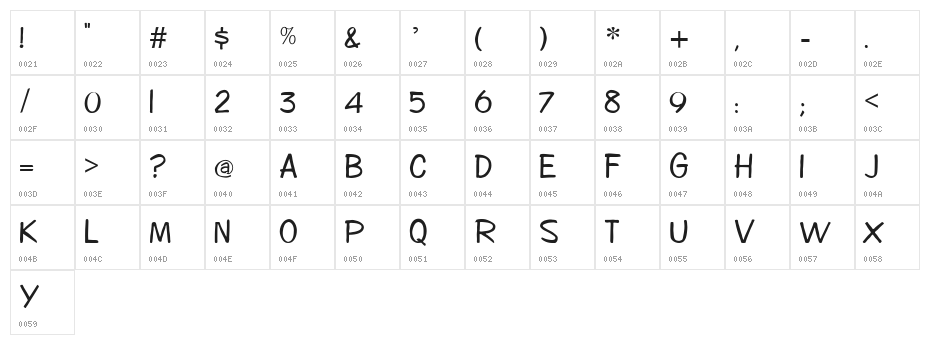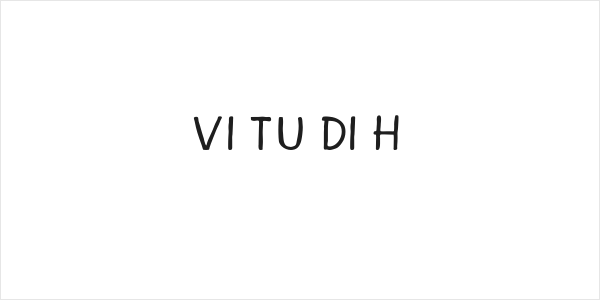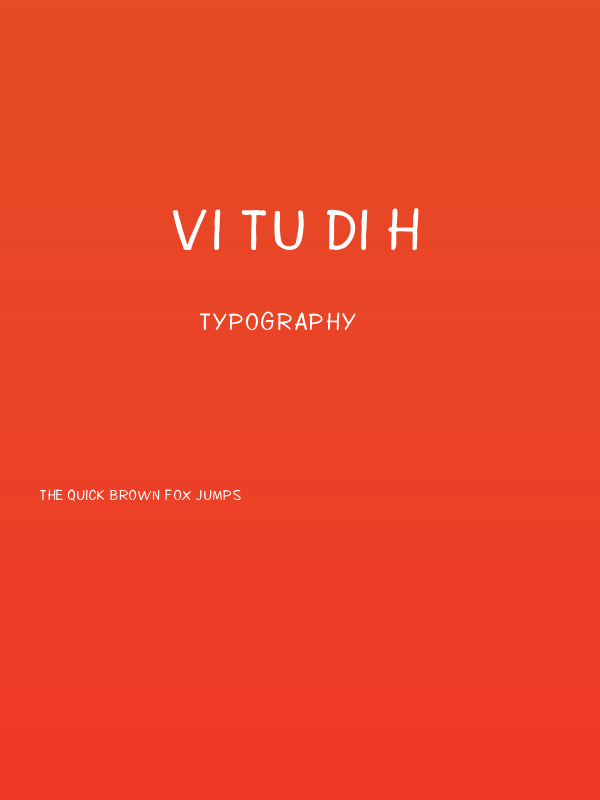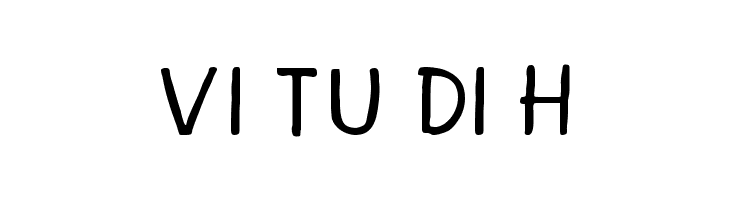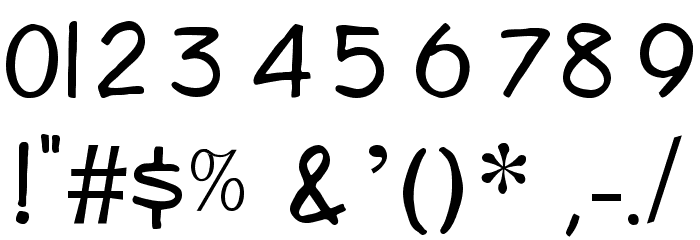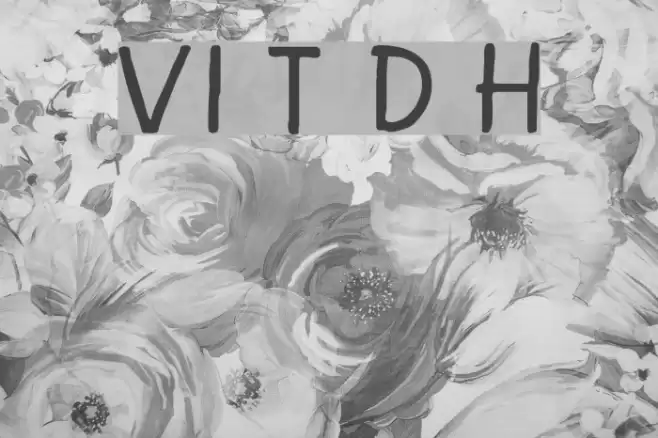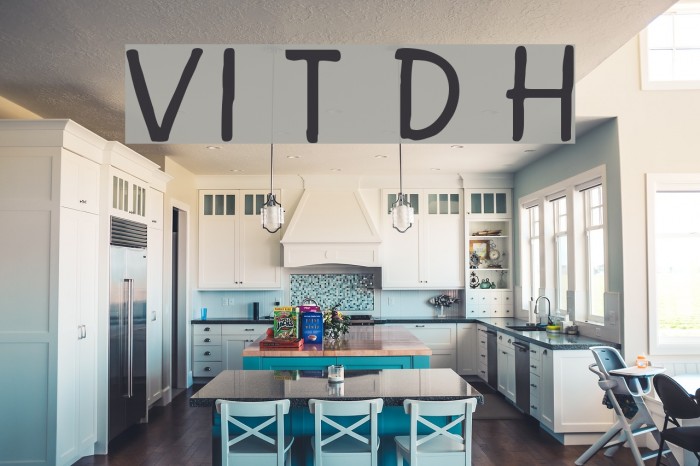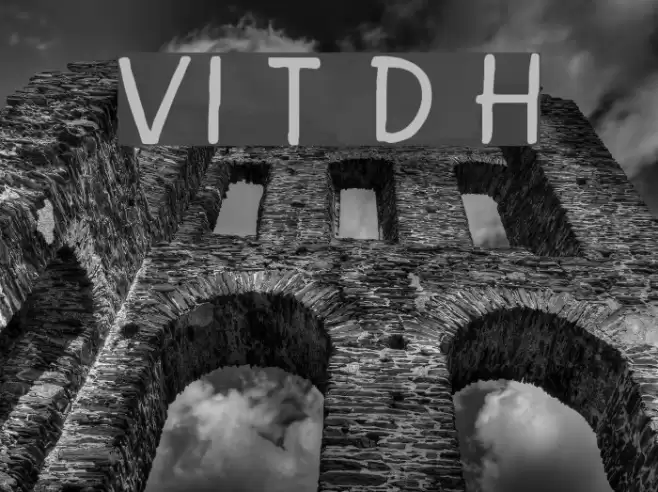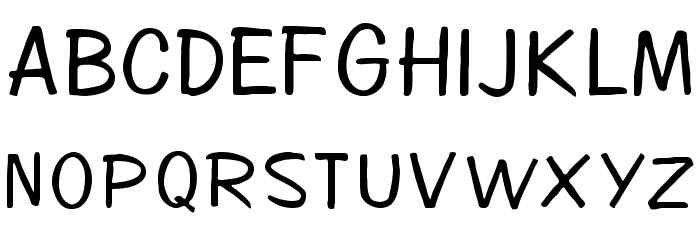
VI Tu Di H Font
VI Tu Di H Description
This font features a playful and informal handwritten style, characterized by its rounded edges and slightly irregular letterforms. The uppercase and lowercase letters maintain a consistent flow, giving the text a casual and approachable appearance. The numerals and special characters are designed to complement the overall style, ensuring readability while maintaining the font's unique charm. Its friendly and relaxed aesthetic makes it suitable for projects that aim to convey warmth and creativity.
| Overall Style | Casual and playful |
| Use Case | Headlines, Informal text, Creative projects |
| Proposed Projects | Ideal for greeting cards, children's books, casual branding, and social media graphics. |